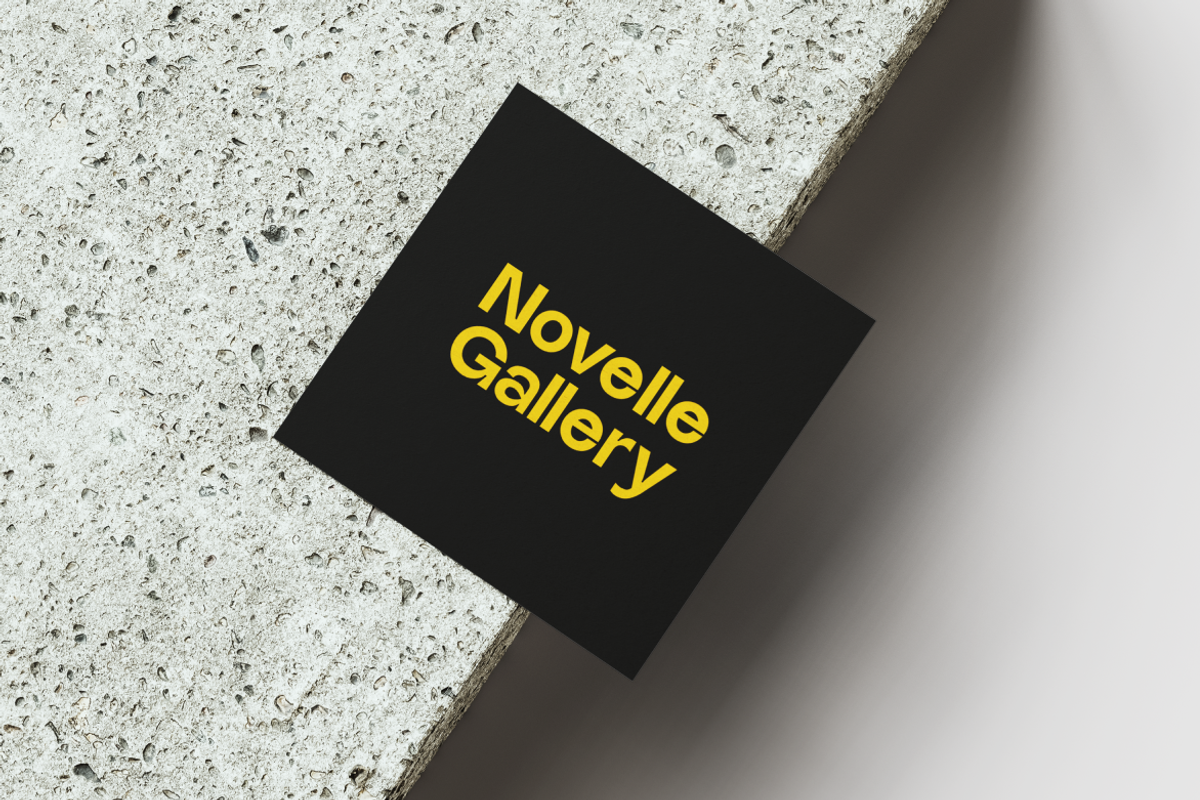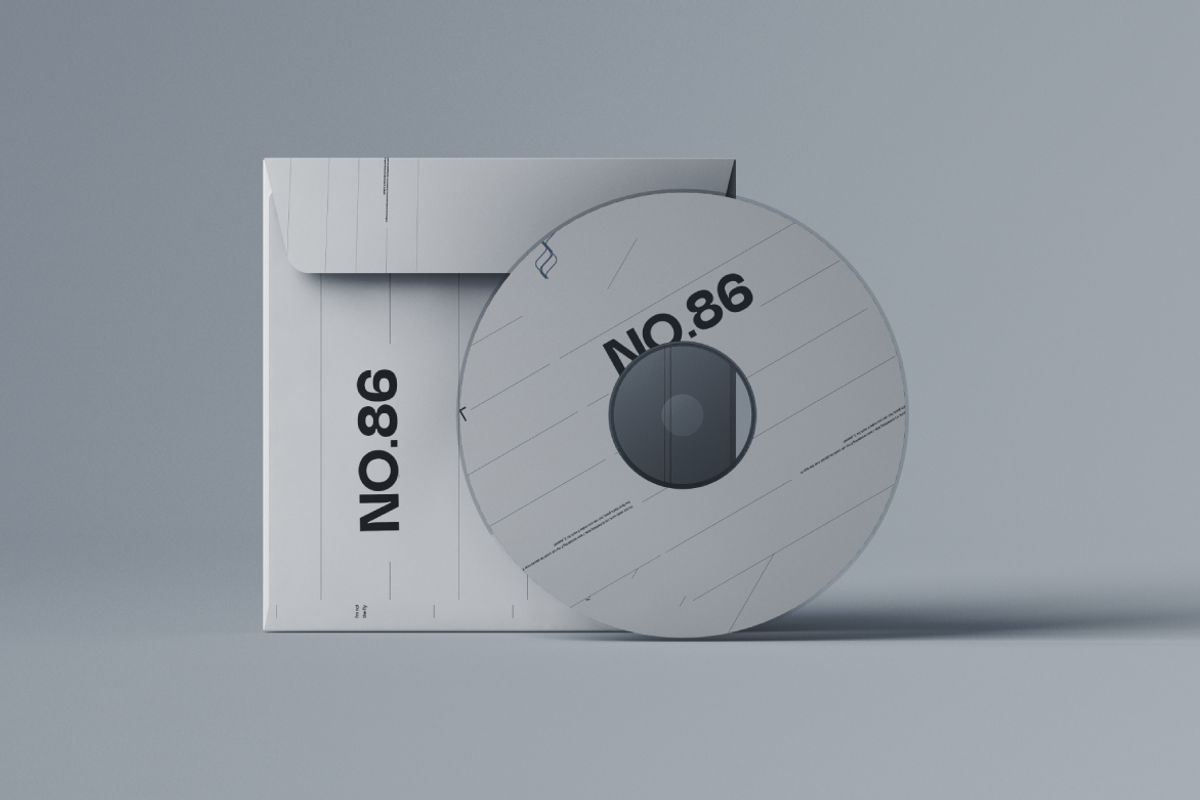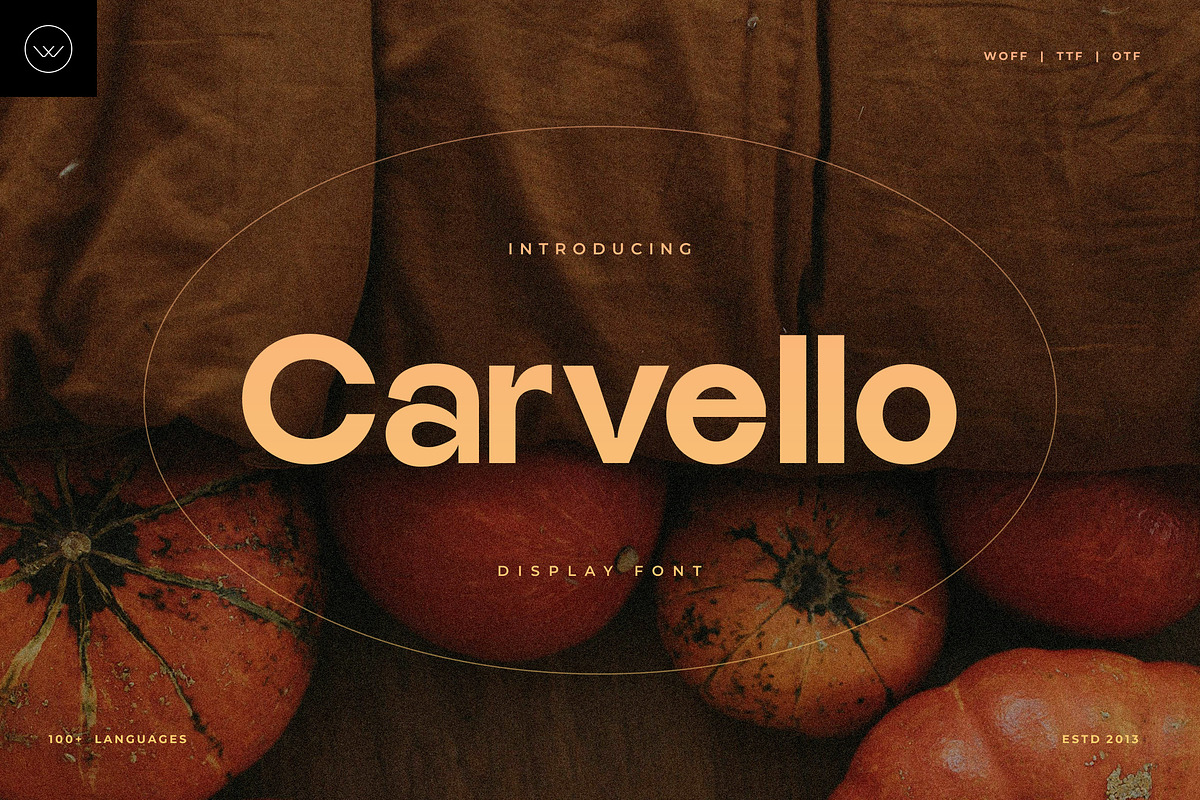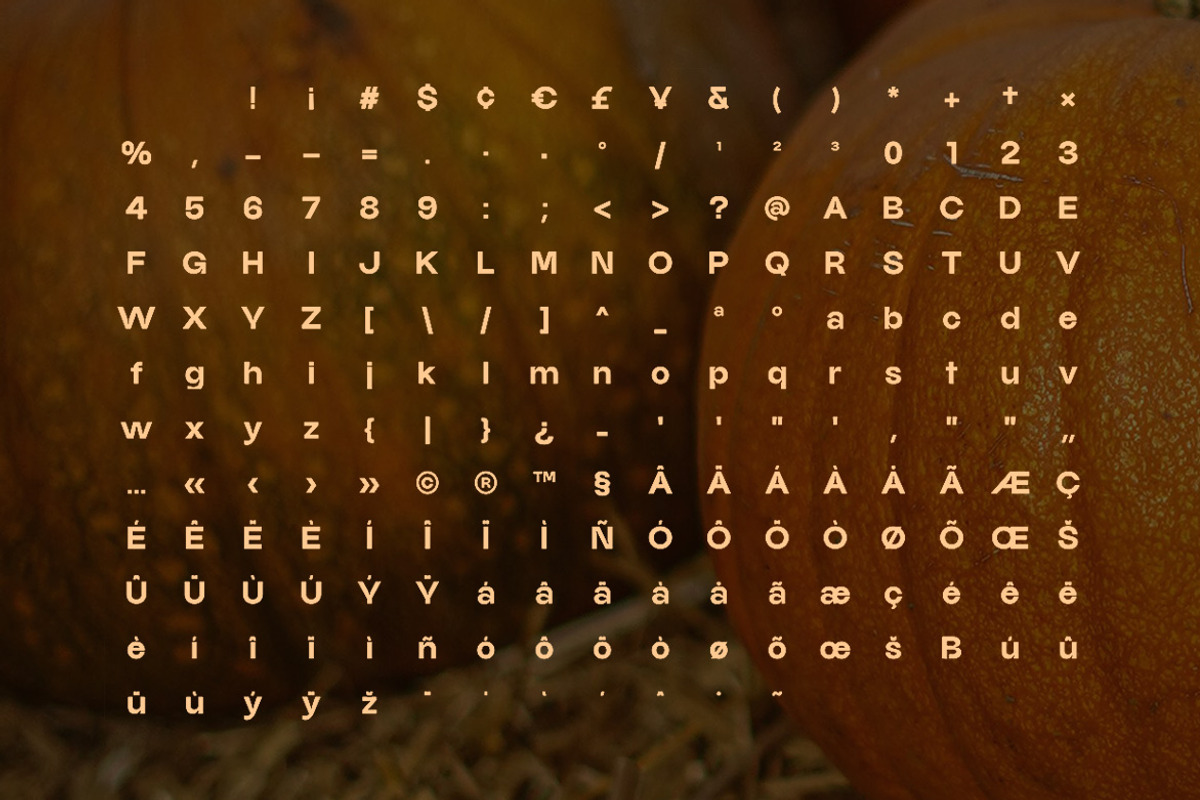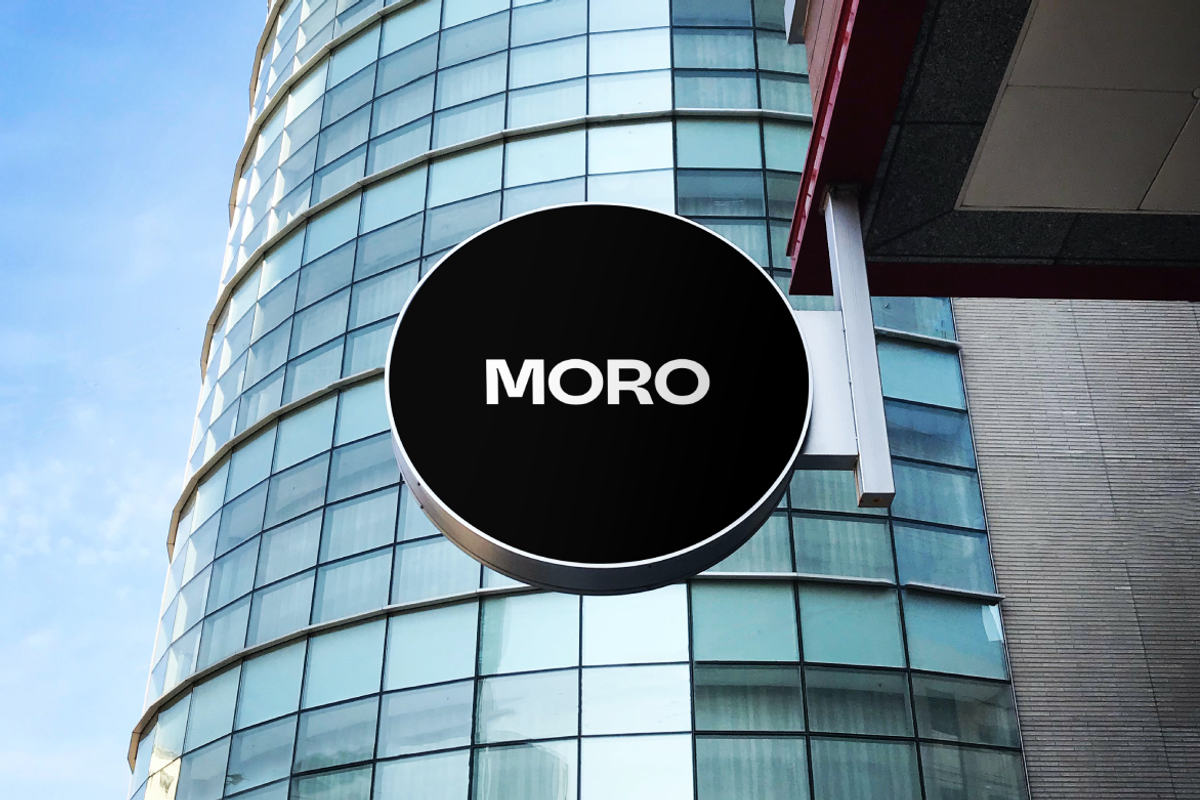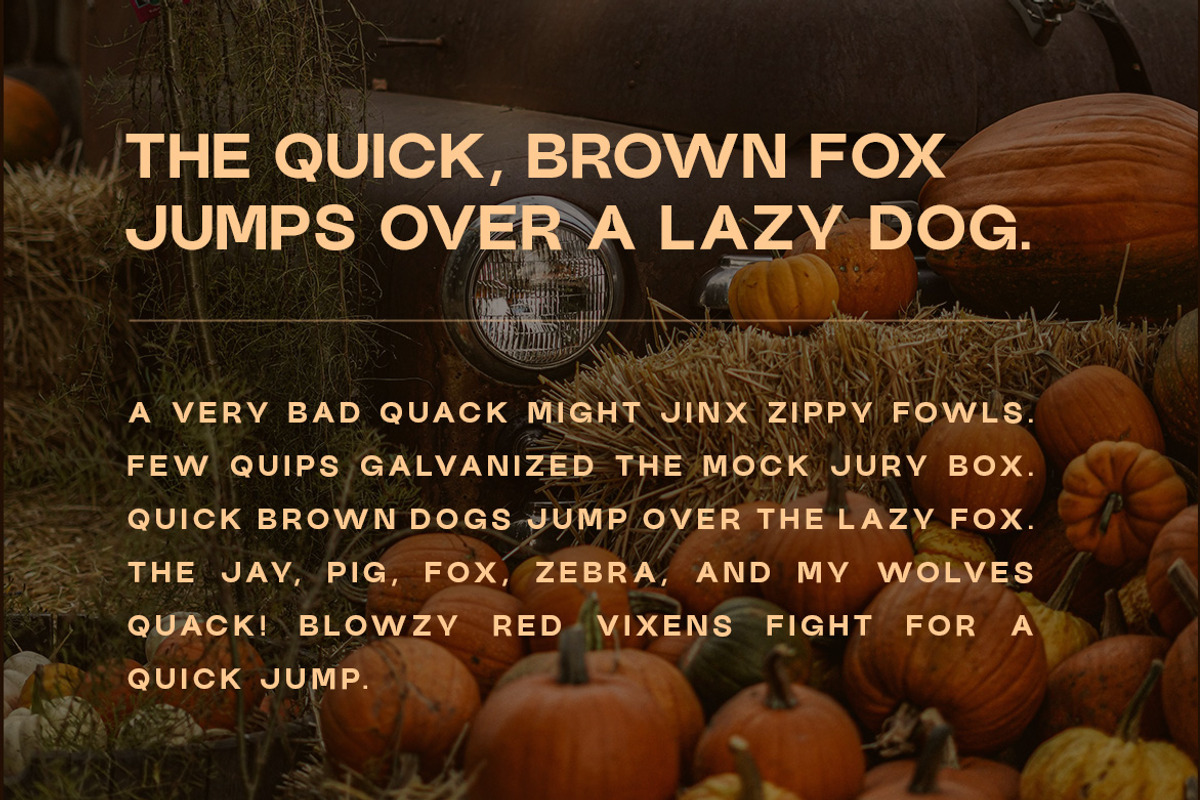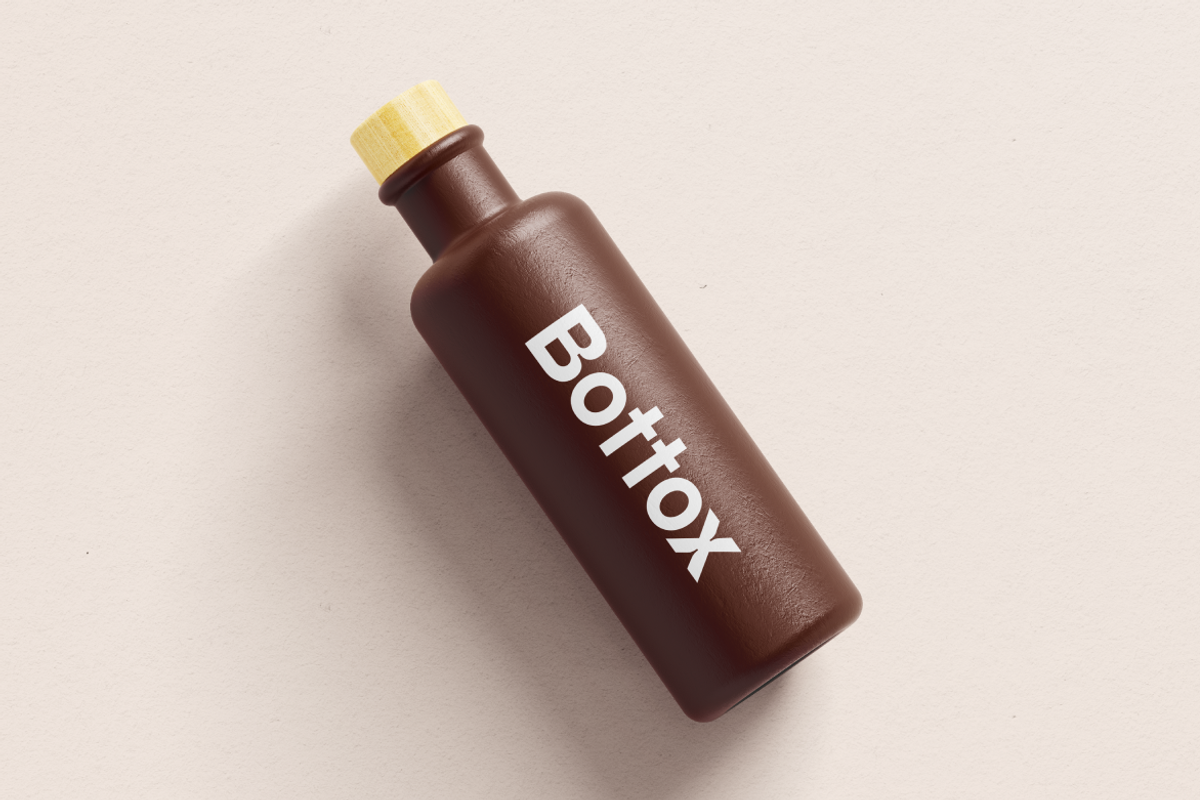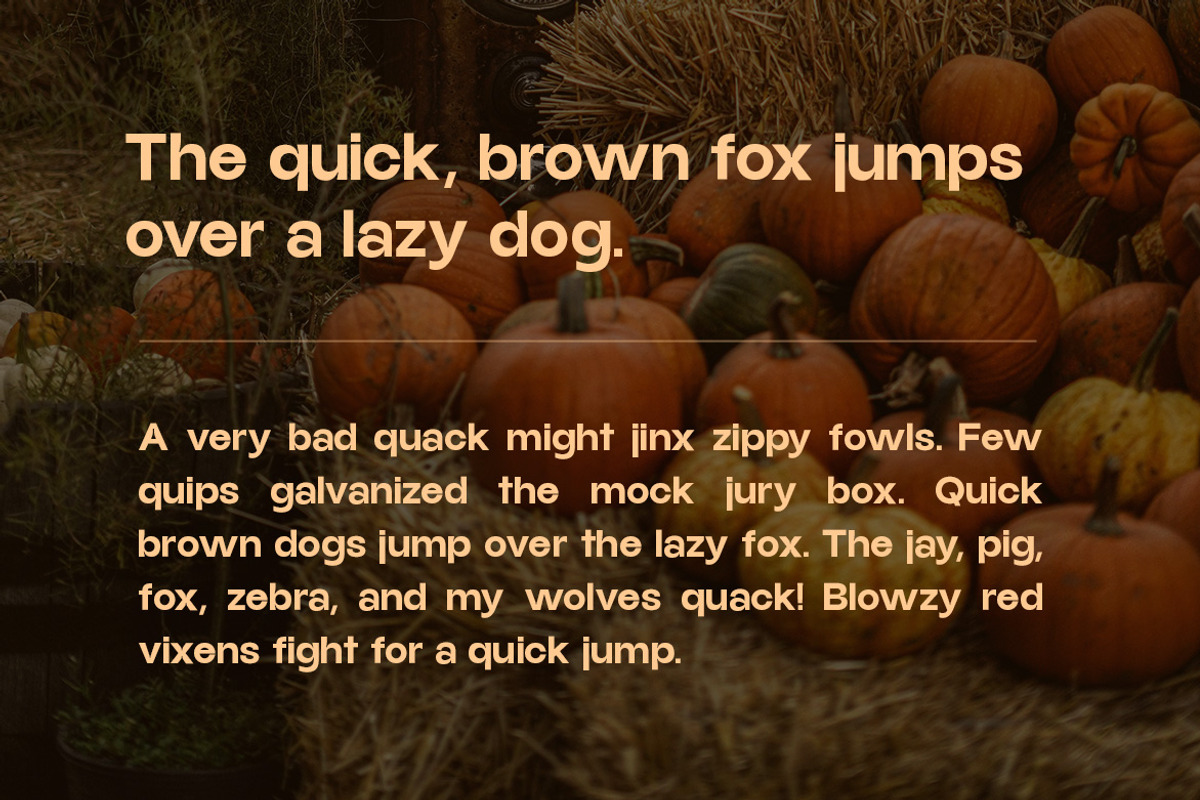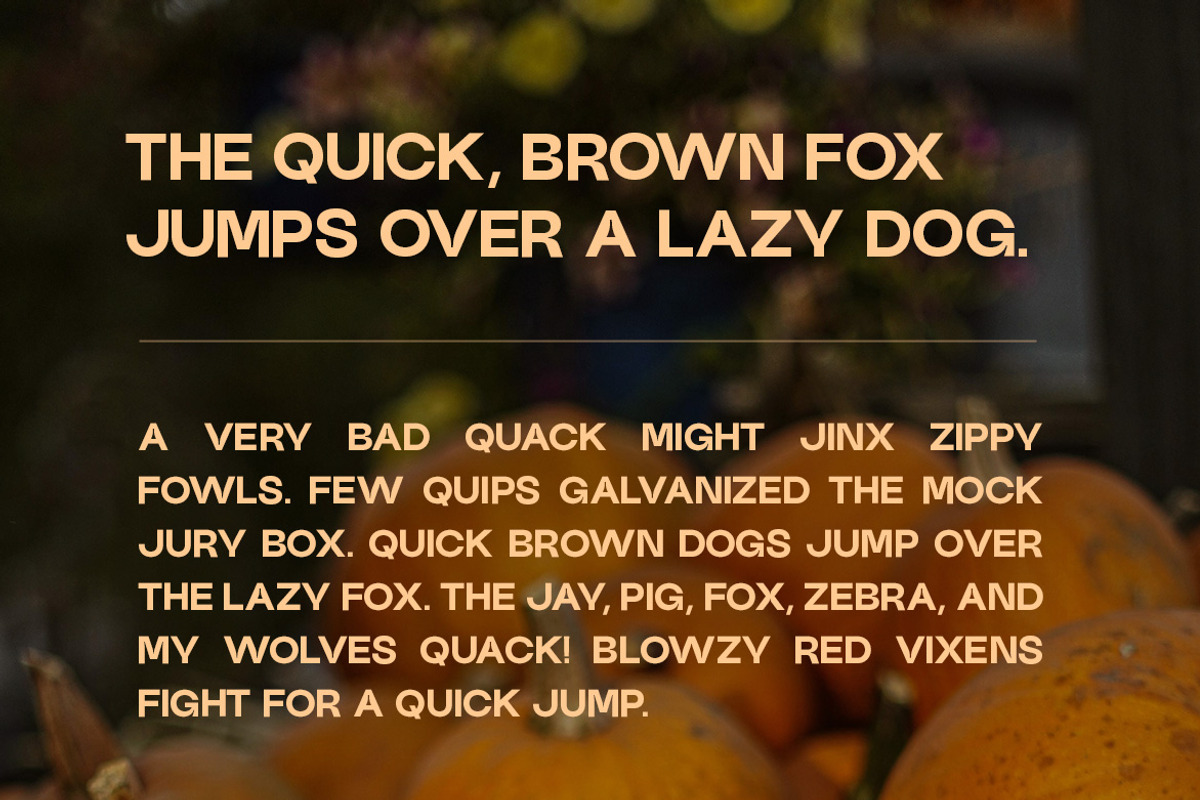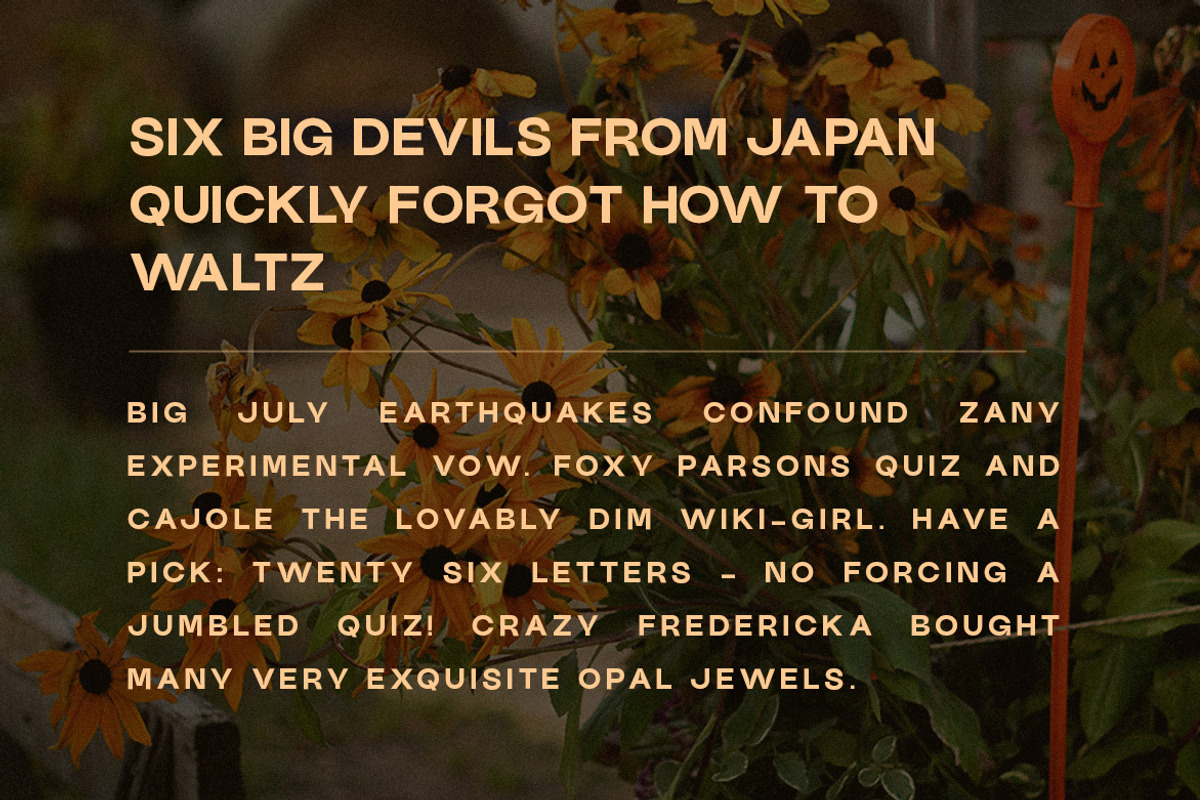
Carvello - Modern & Seasonal Sans
Carvello - Modern & Seasonal Sans-serif Typeface
Carvello is a modern display typeface inspired by the warmth of autumn nights and the charm of pumpkin carving. It combines bold shapes, smooth curves, and balanced proportions to create a clean and elegant visual style. Carvello is perfect for posters, packaging, social media graphics, headlines, and seasonal branding.
The design reflects the cozy glow of candlelight and the mood of fall evenings. It brings a mix of character and sophistication to both print and digital projects. With its confident yet refined appearance, Carvello works beautifully for creative, minimal, and festive designs.
Carvello includes extended Latin support and covers a wide range of languages, making it suitable for global audiences. Whether you are designing a Halloween campaign, a modern logo, or a bold magazine headline, Carvello adds clarity, warmth, and a distinctive seasonal personality to your work.